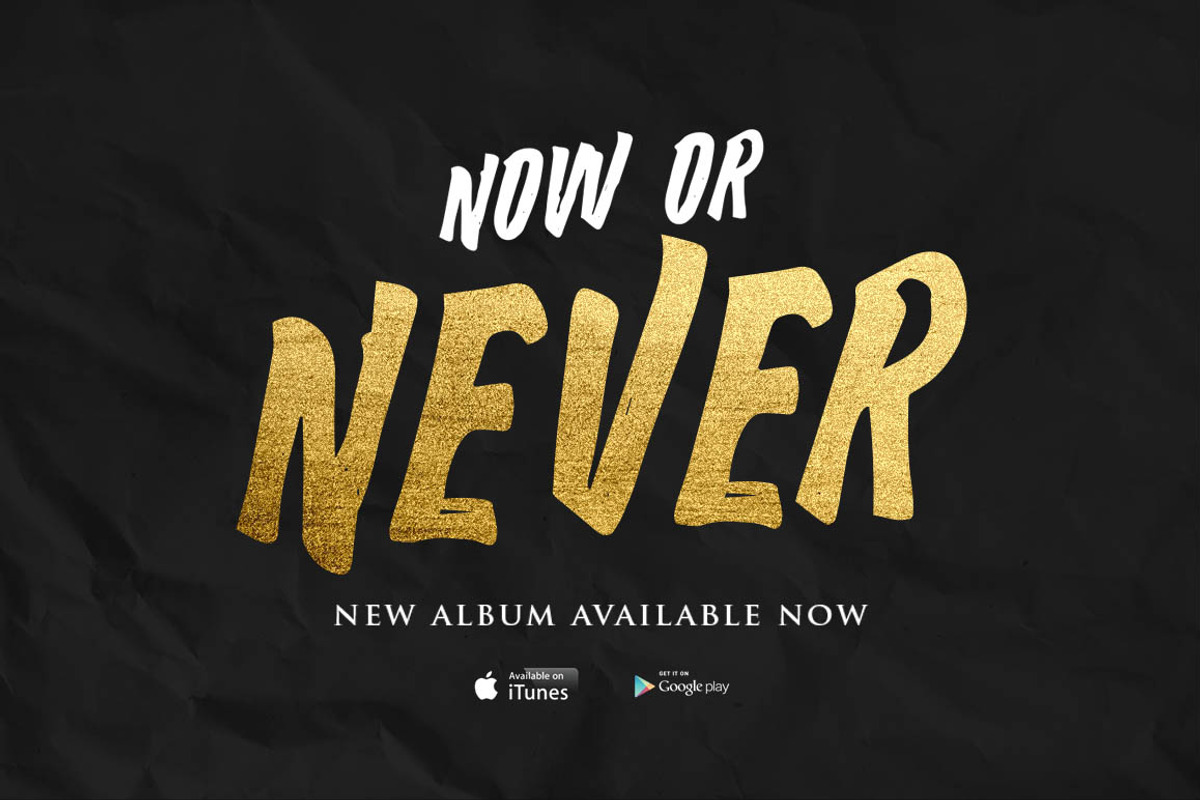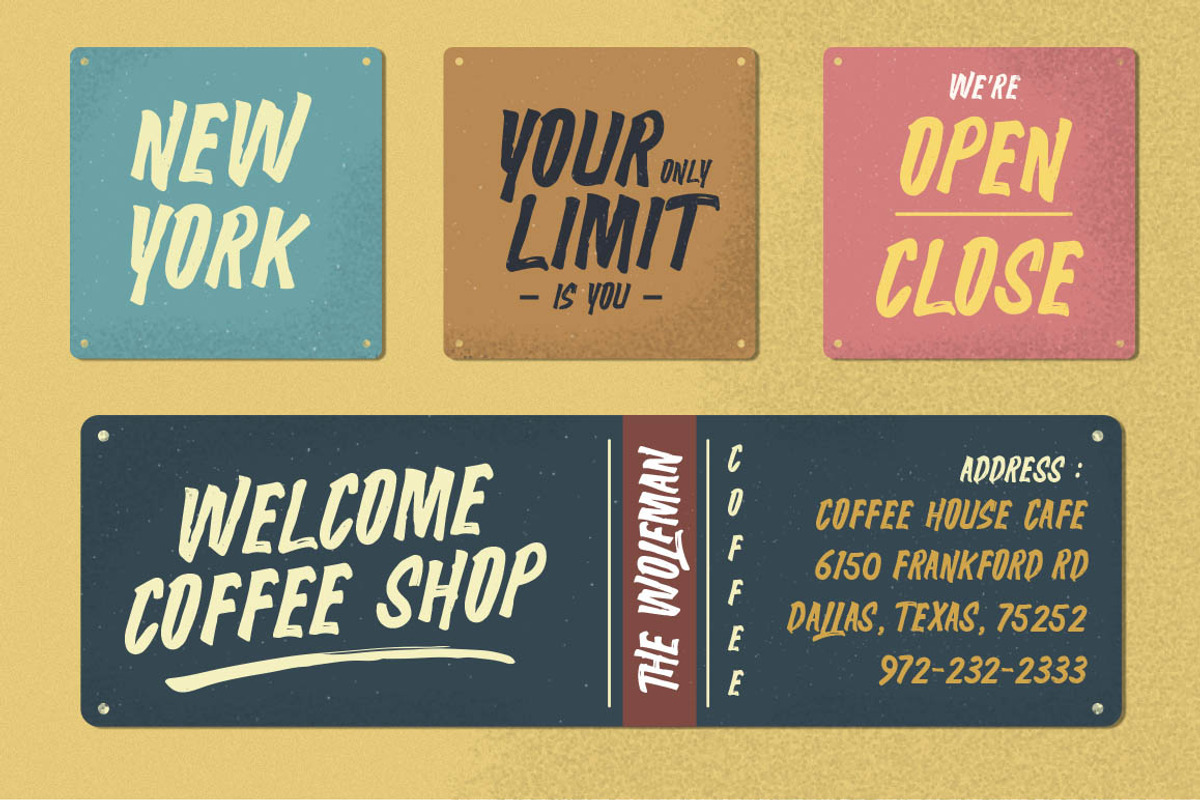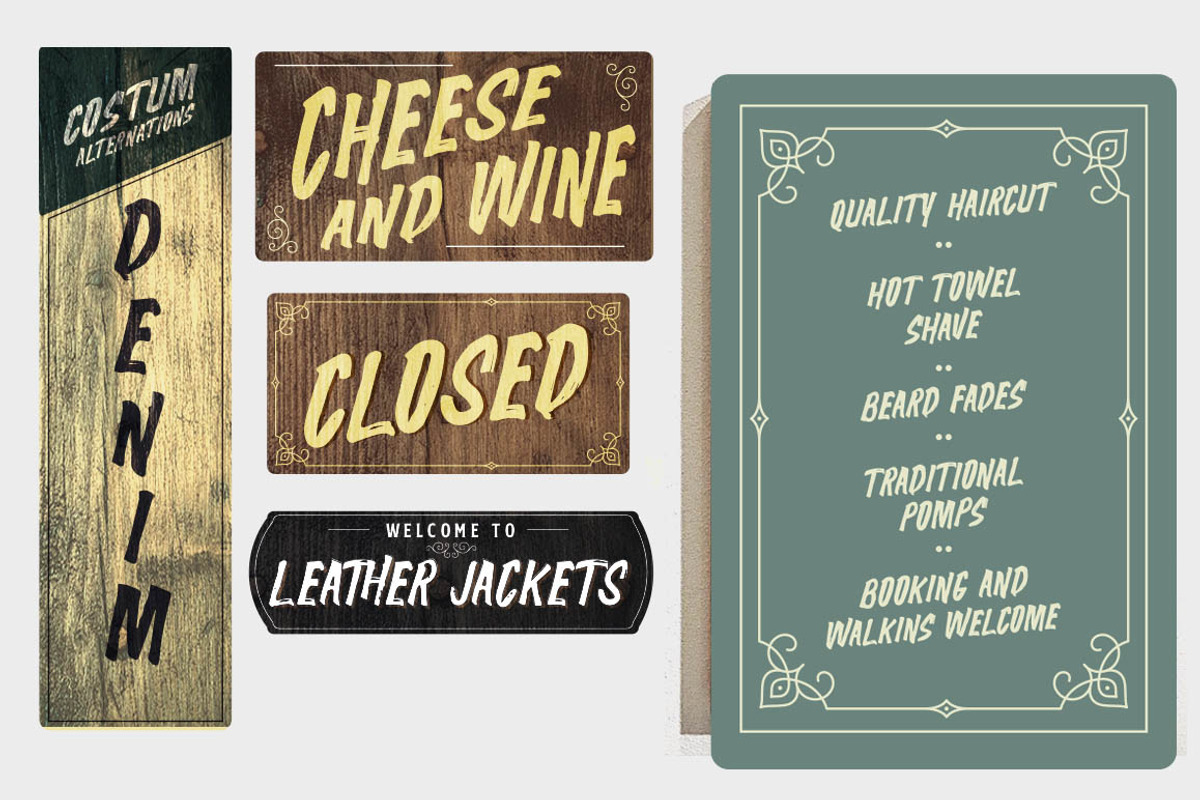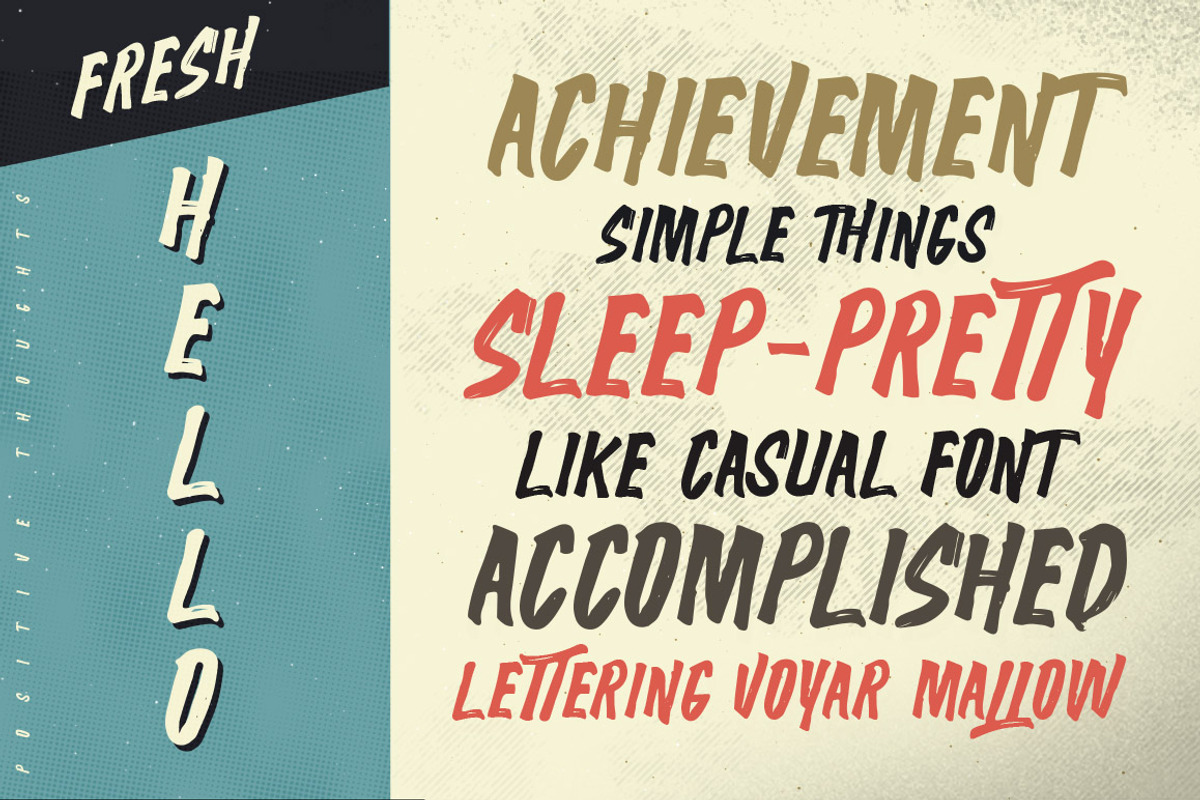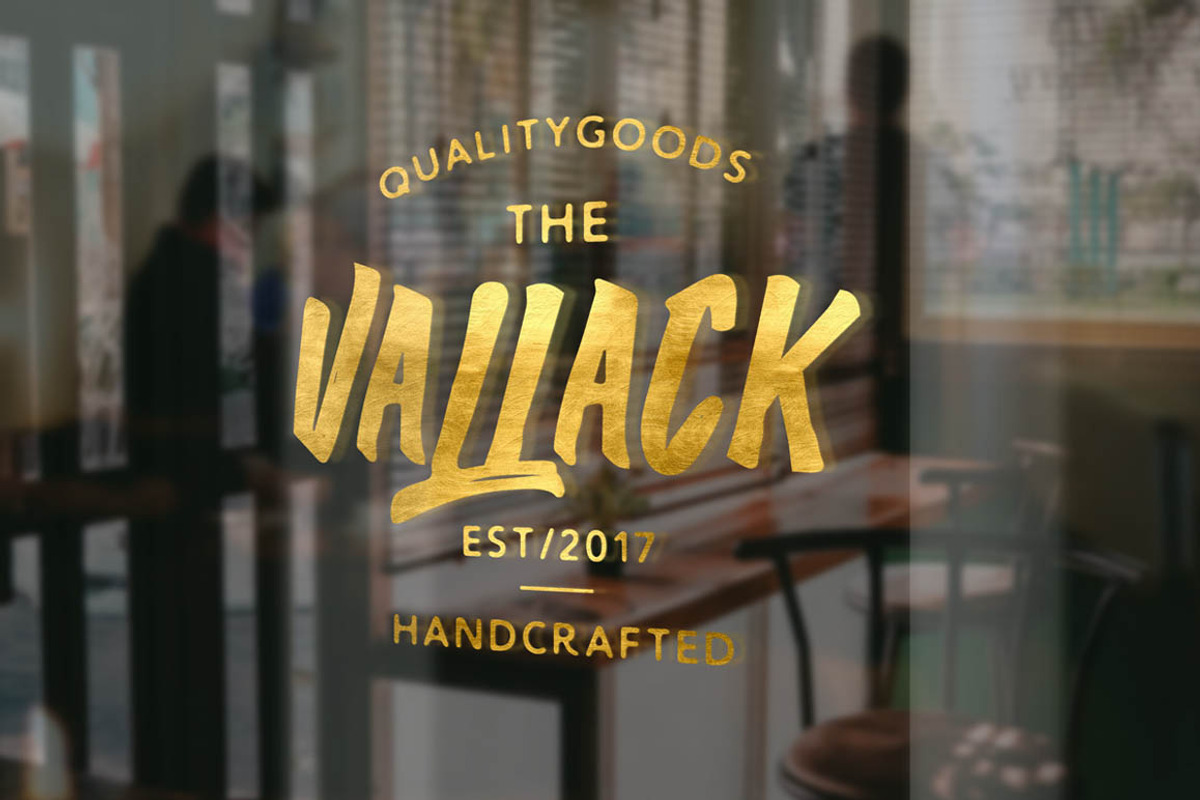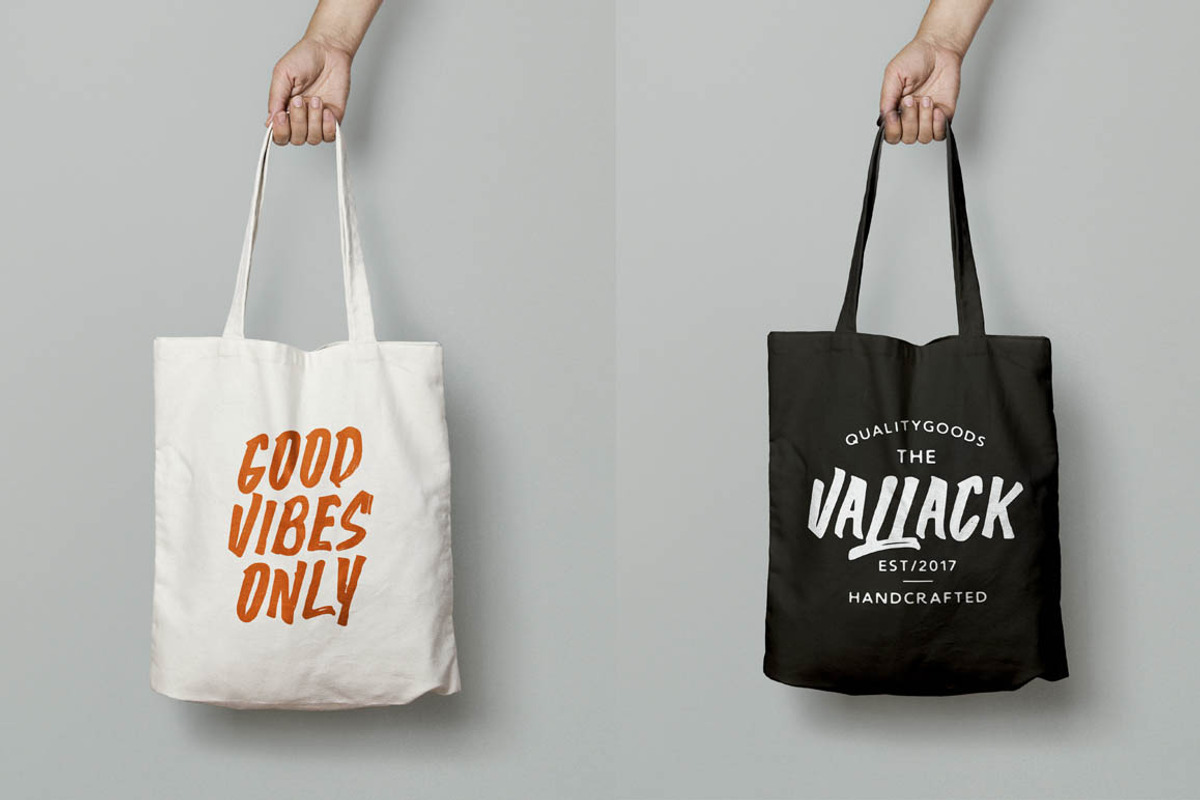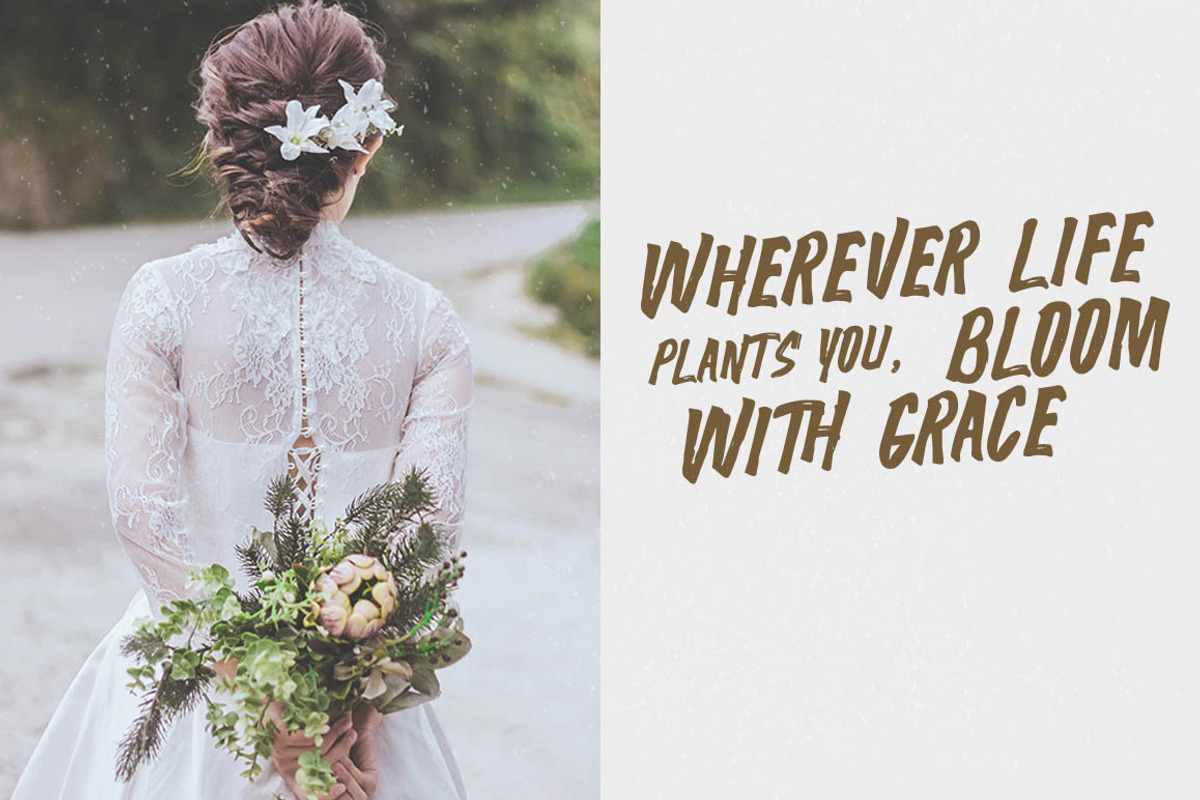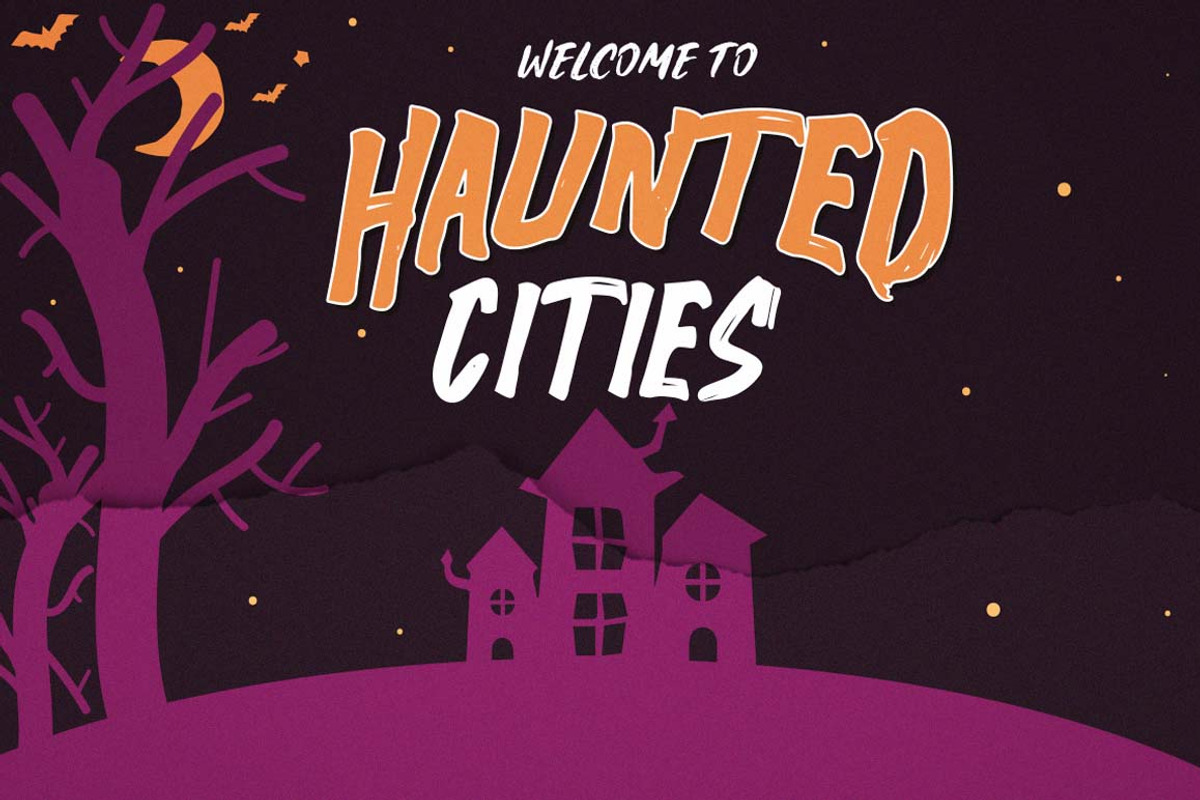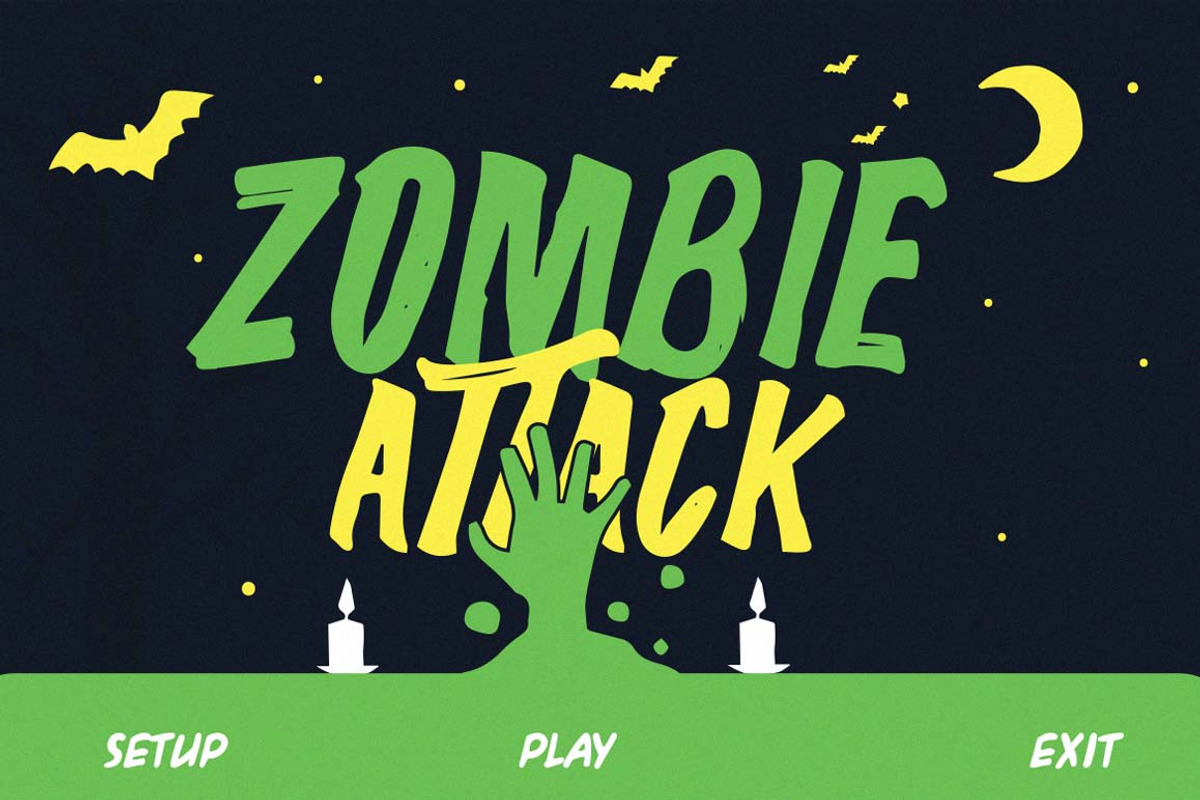
The Wolfman
The Wolfman is a hand-painted font that each character is carefully painted to perfection. detail is maintained when the character is digitized. Thick brush fonts full of energy with extra attention to quick sweeps and sharp details, The Wolfman is guaranteed to deliver a very loud & fast message; ideal for logos, signpainting, clothing, quotes, product packaging, or anything that requires brush and thick typography.
This is a large and rough and thick brush display font, with a little street punk attitude. It will be perfect for posters, packaging, advertisements, headlines, branding, signboards, and whatever you want from the brush and streetwear look. This font can be paired perfectly, and the Swash collection is very useful.